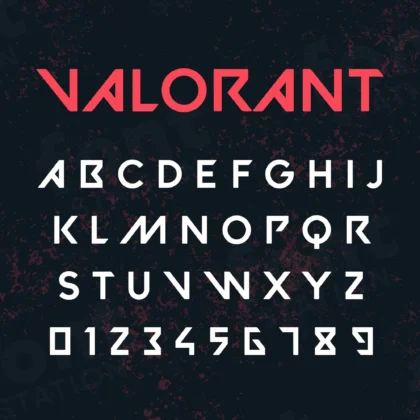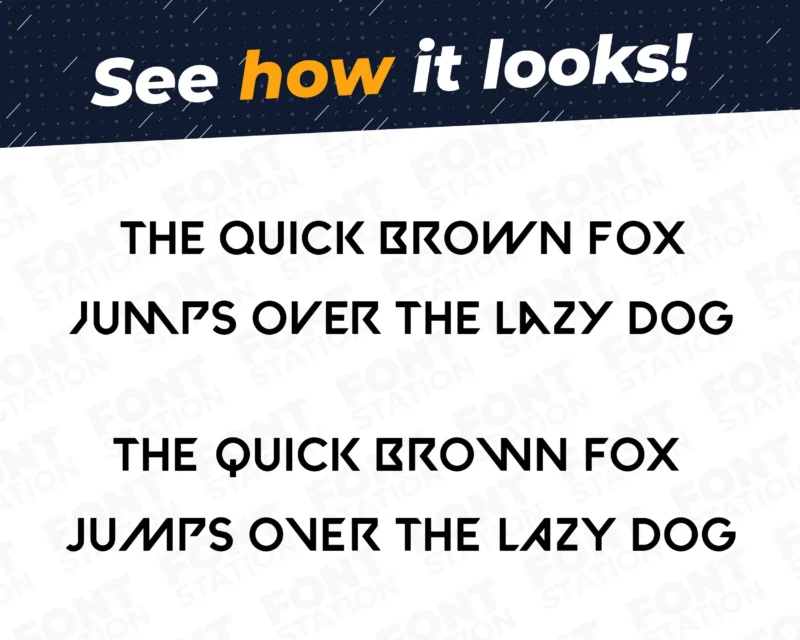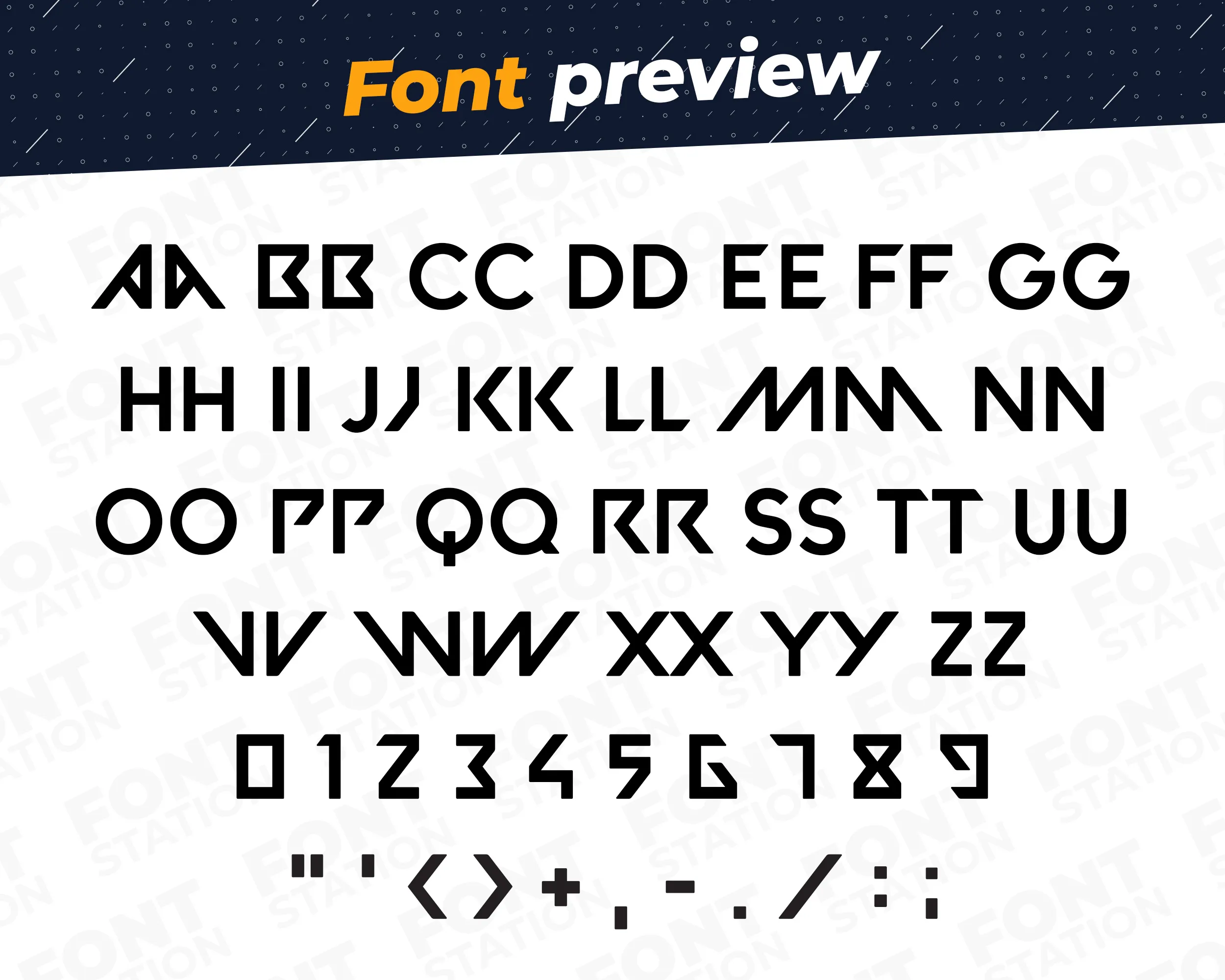
Our Shooter Game typeface, inspired from Valorant font
Grab your computer, tablet or other device and start creating right now with our Valorant font letters! Our Shooter Game typography is inspired from Valorant video game font, making it ideal for various digital creations (logo, word…), sublimation, cake toppers, stickers, event decorations, and more.
Valorant Font